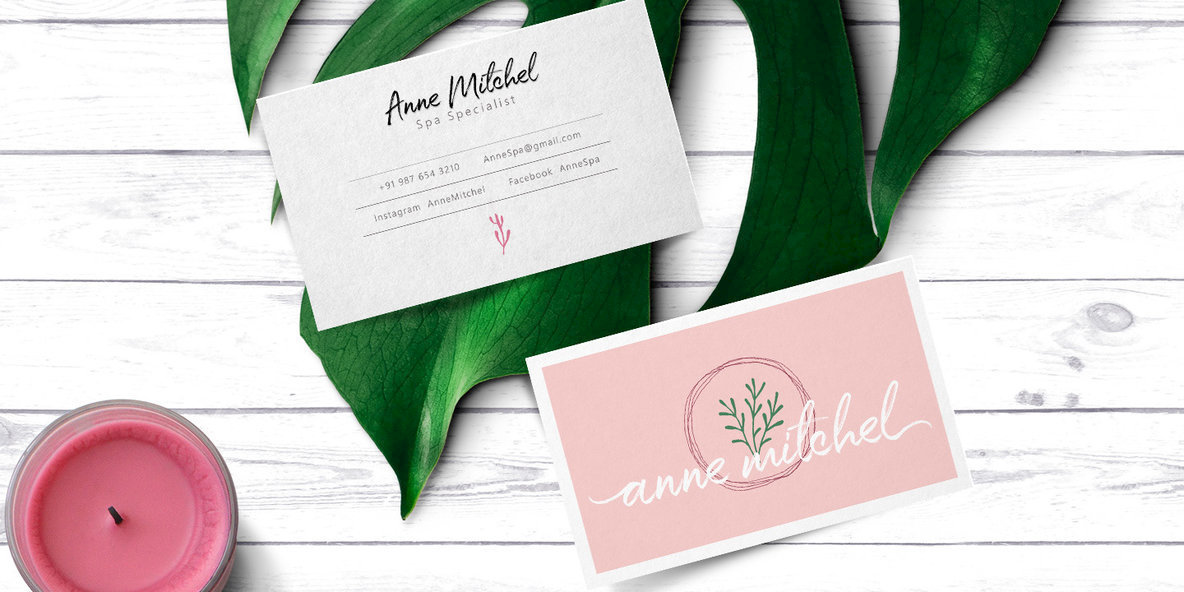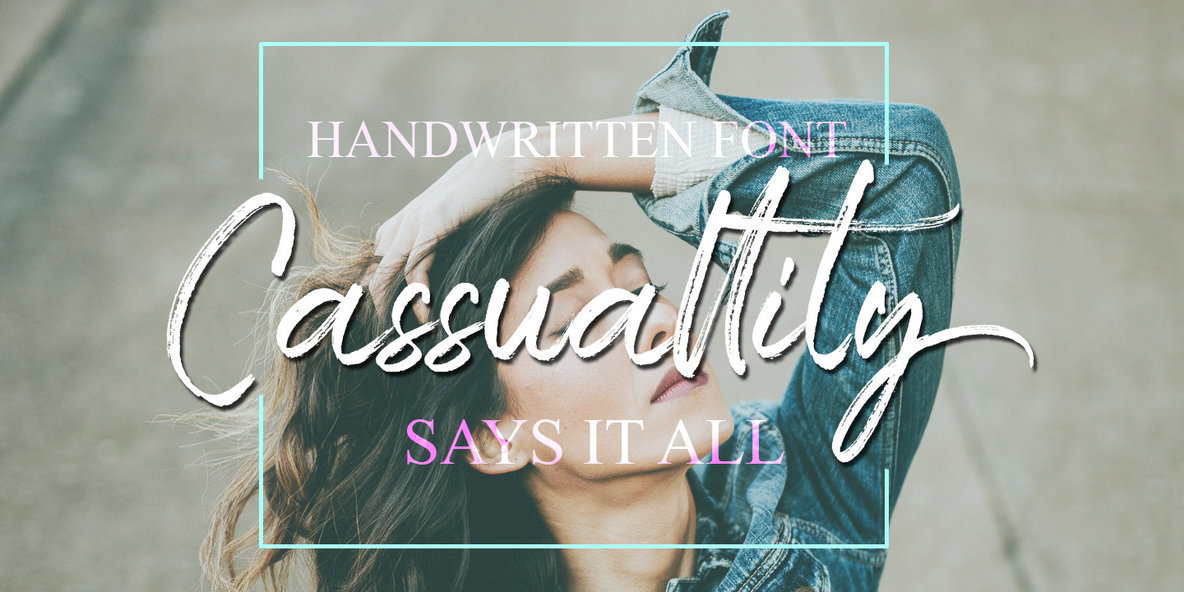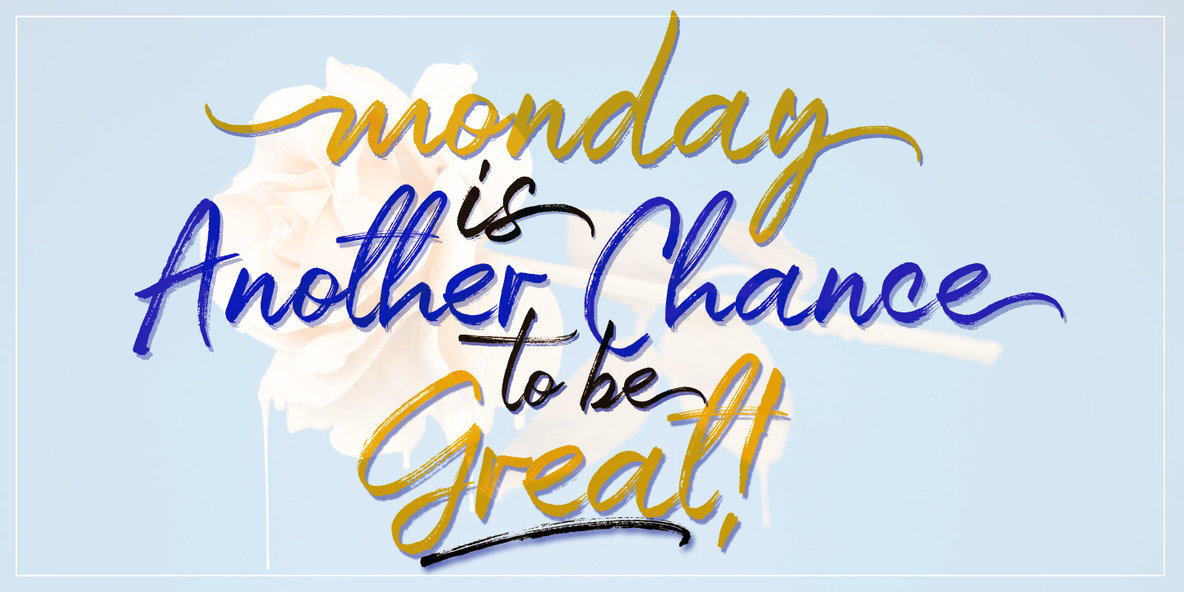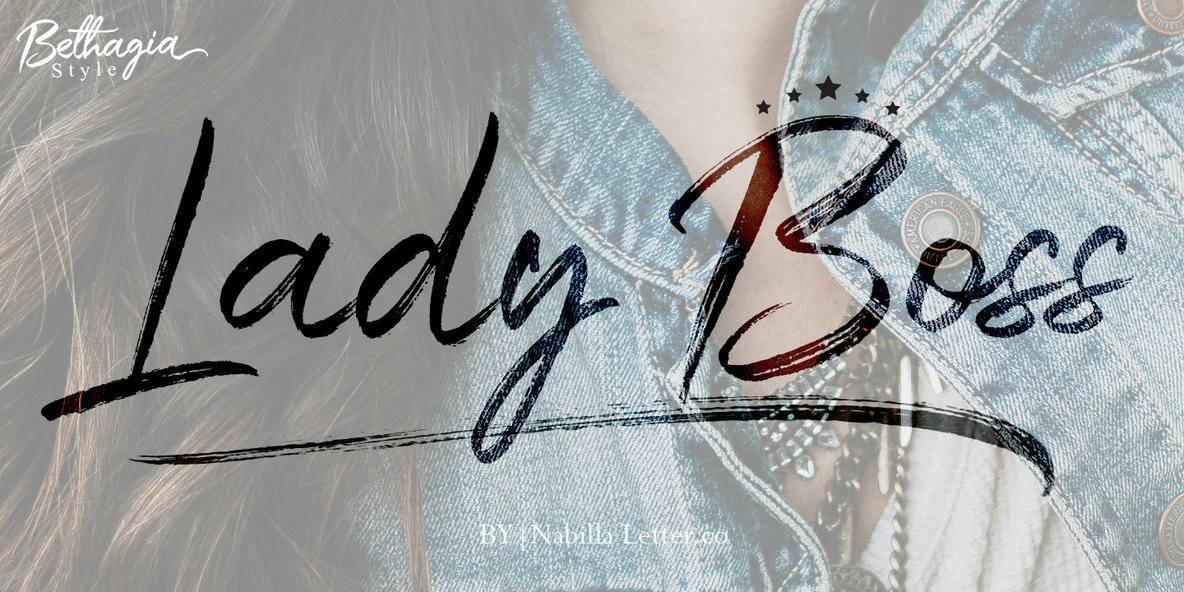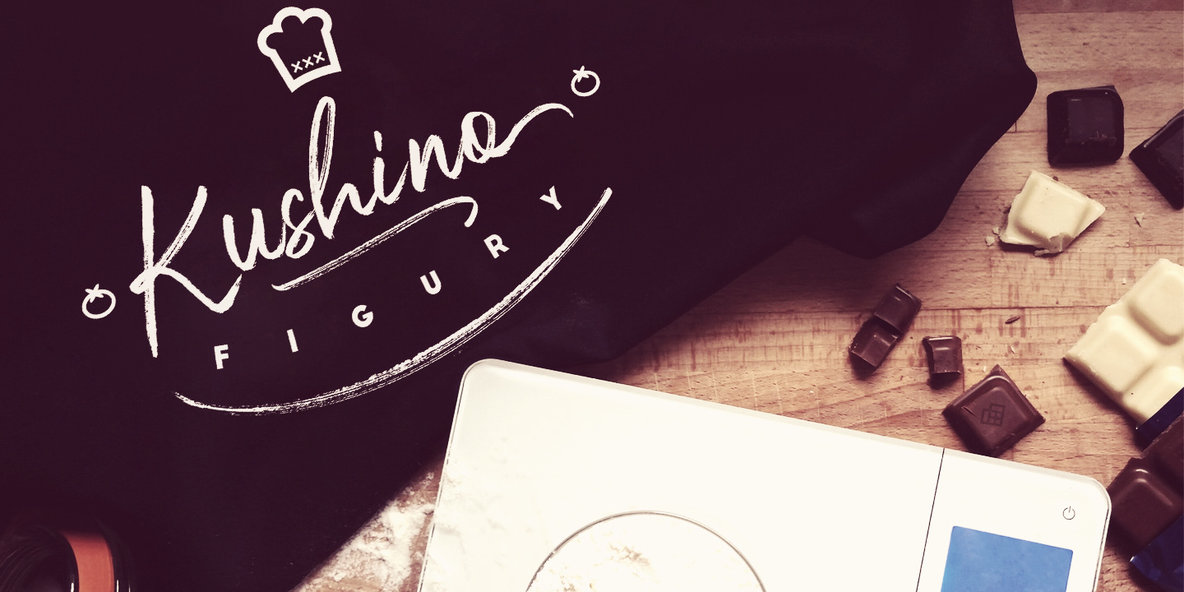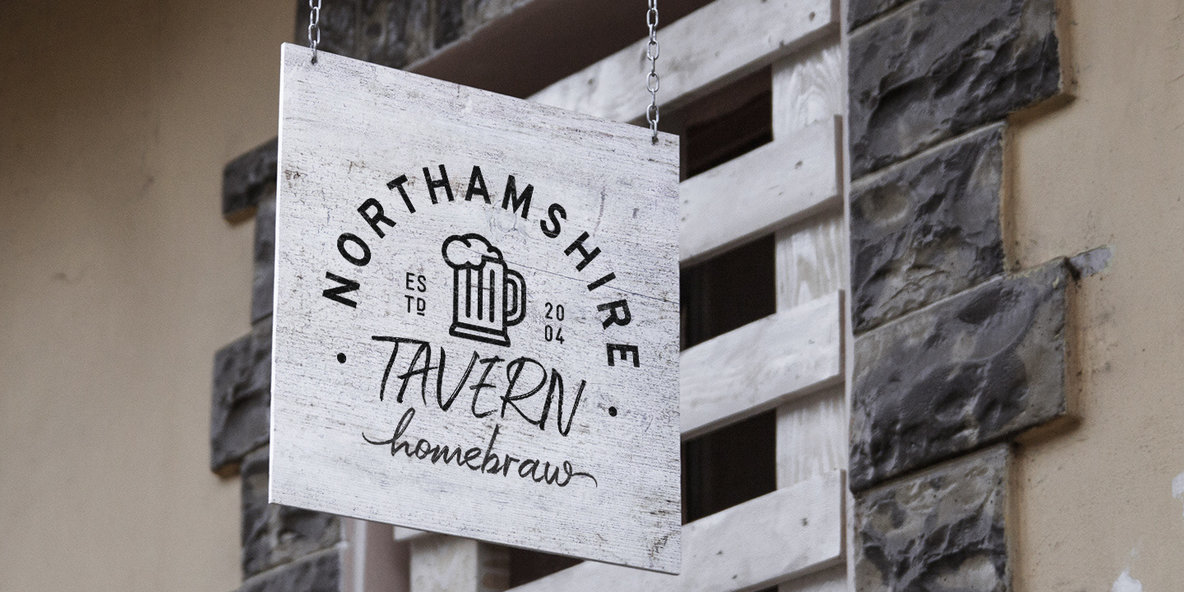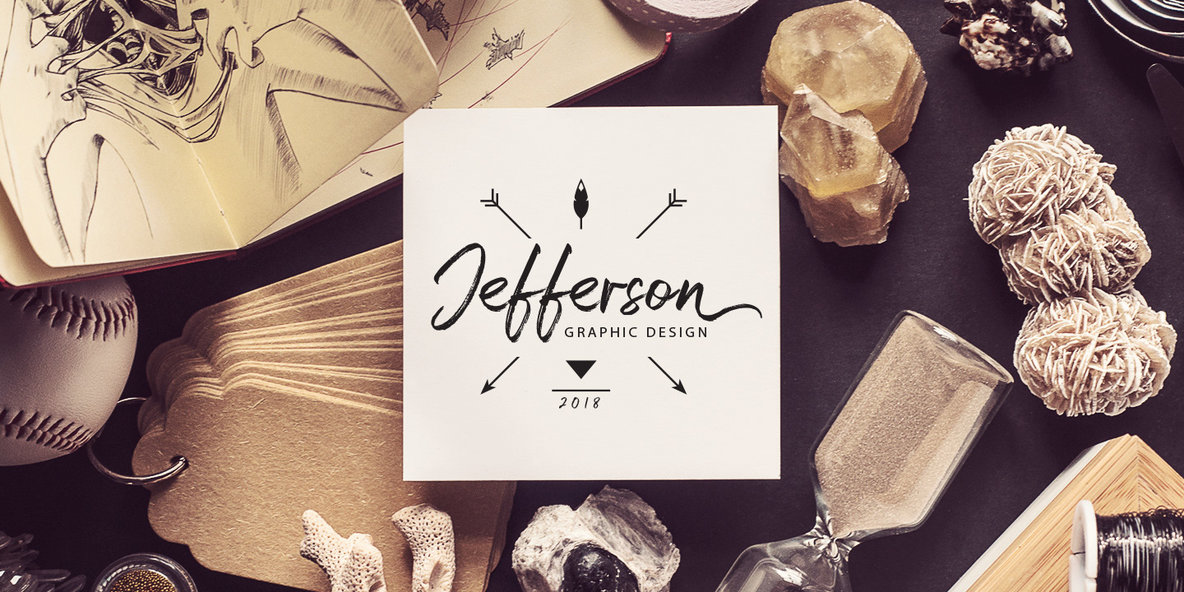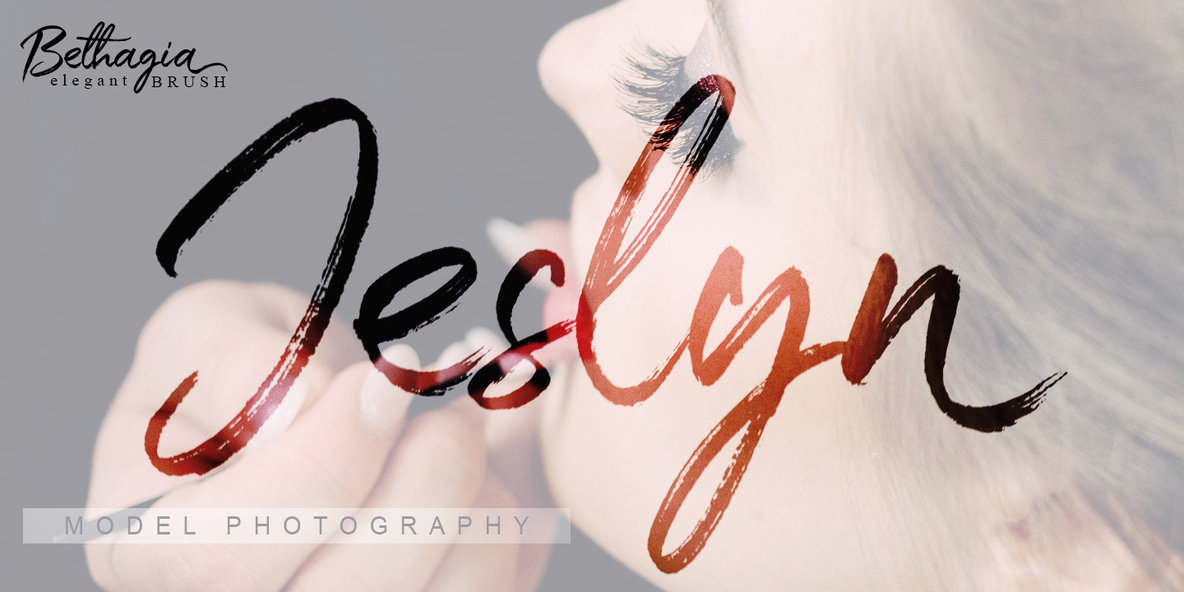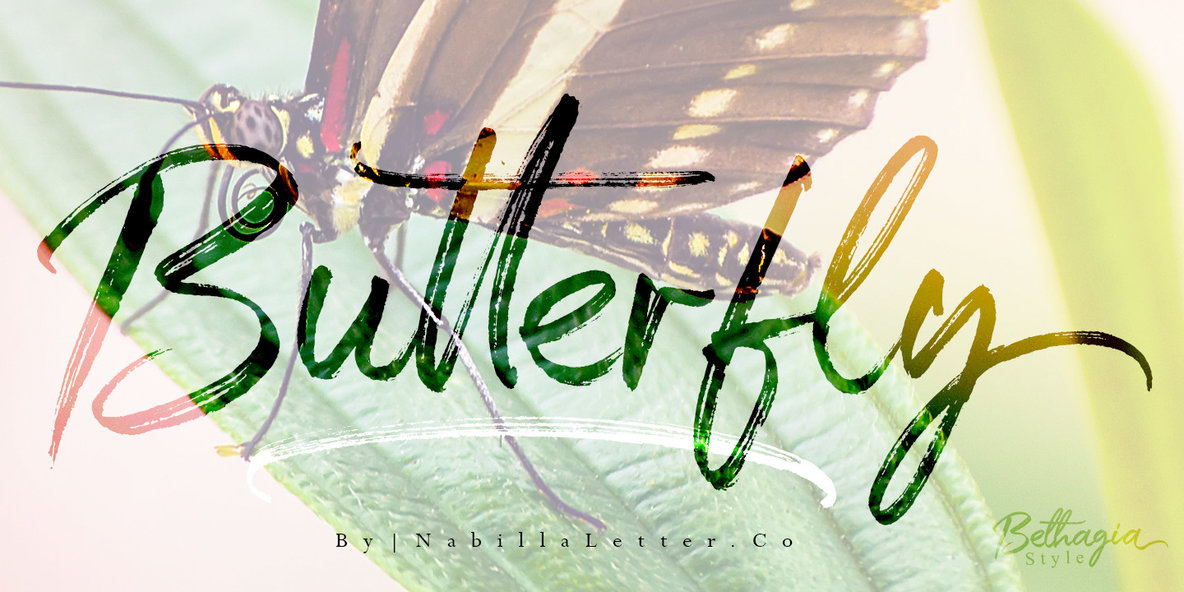
Bethagia: Rustic Handwritten Font for Diverse Designs
Bethagia by Nabilla
is a rough handwritten typeface imbued with a natural, dry texture. This font offers an elegant script perfect for a wide range of design needs, from business cards and envelopes to logos and greeting cards. Its unique character draws on handwritten nuances, lending a personal touch to any project.
• Handwritten Charm – Includes uppercase and lowercase letters, numbers, and punctuation.
• Versatility – Works beautifully on wedding materials, packaging, and nameplates.
• Complementary Style – Pairs effortlessly with simple Sans Serif fonts for a contemporary, dipole style.